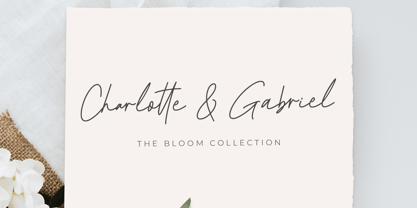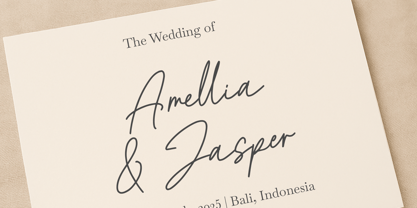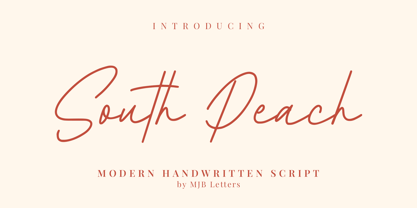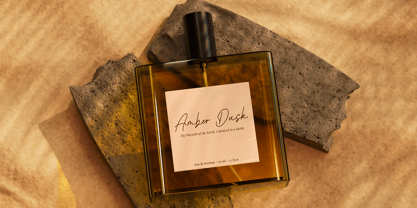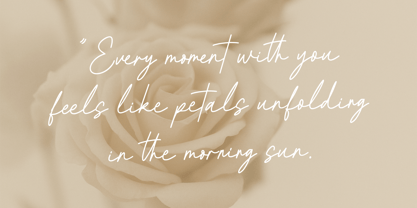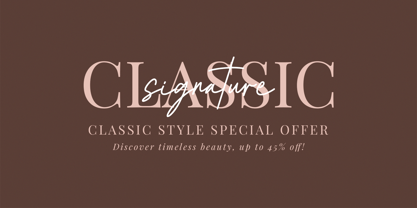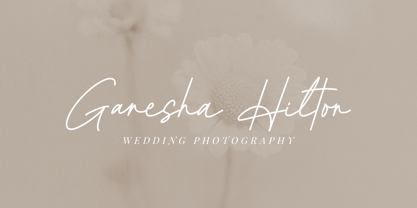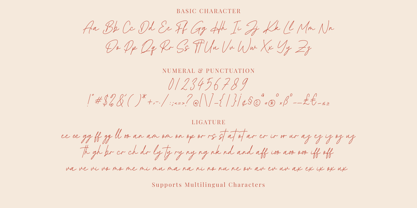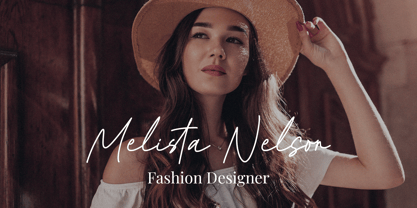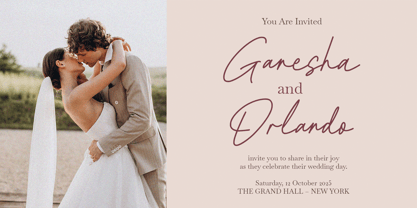
South Peach
by MJB Letters
The South Peach Font Family was designed by Muhammad Mujibulloh and published by MJB Letters. South Peach contains 1 styles. More about this family
South Peach is a modern handwritten script font that combines simplicity and elegance with a natural handwritten flow. With smooth strokes and a casual yet refined style, this font is perfect for creating designs that feel authentic, warm, and stylish. Whether you’re working on branding, logos, wedding invitations, product packaging, greeting cards, or social media designs, South Peach will bring a fresh and modern handwritten vibe to your projects. Features: Modern handwritten script style Clean, natural, and elegant look Ideal for branding, wedding stationery, logos, and packaging Versatile and easy to pair with serif or sans serif fonts If you’re looking for a handwritten script font that’s modern, fresh, and versatile, South Peach – Modern Handwritten Script is the perfect choice for your creative projects.
Designers: Muhammad Mujibulloh
Foundry: MJB Letters